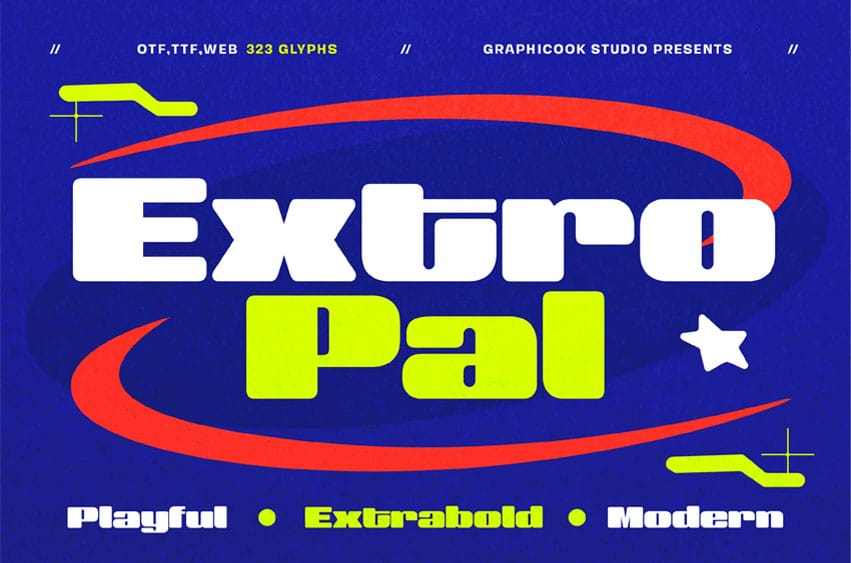
Extropal Font is a wide, extra-bold font that blends nostalgic vibes with futuristic flair. It’s perfect for bold, expressive designs that demand attention.
Extropal is perfect for headlines, logotypes, magazines, packaging, quotes, movies, games, cover albums, book covers, and flyers, it’s a perfect solution for creating eye-catching designs that stand out in any context.